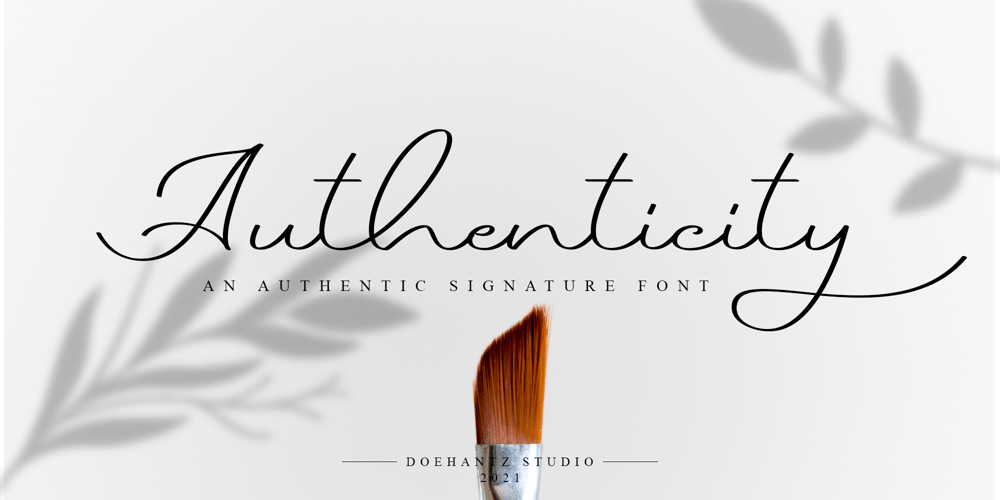
Authenticity
Authenticity font
Authenticity Font Family was designed by Abduhan Fikhri and published by Doehantz Studio. Authenticity contains 1 styles and family package options. Authenticity is an authentic signature font. It made with a neat touch making it easy to read. This font is suitable for use as web logos, signatures, invitation, prints, headers, magazines, book covers, t-shirt prints, craft, product brand, business card, logo, and gift card